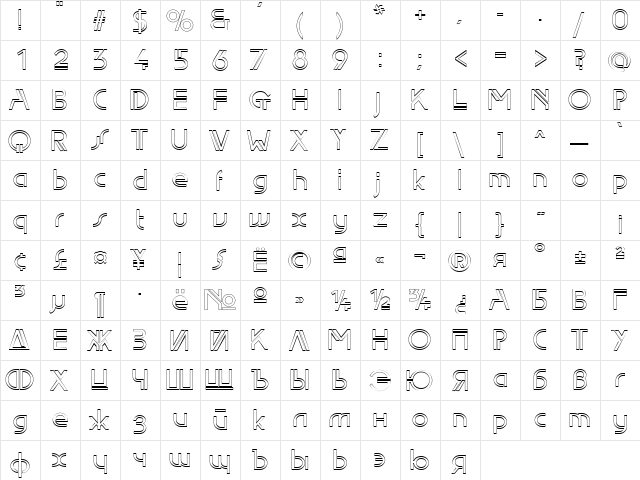
EdgeLineOutline Normal Font Preview
EdgeLineOutline Normal
Design Context for EdgeLineOutline Typeface
EdgeLineOutline brings ornamental detail and strong personality to headlines and identities, where visual impact matters more than quiet functionality.
Font Pairing: Pair with a clean neutral sans-serif for body copy to let EdgeLineOutline's character lead without overwhelming the composition.
Pro Tip: Treat EdgeLineOutline as the centrepiece of your typographic hierarchy. One strong heading set in a decorative face can carry an entire layout.